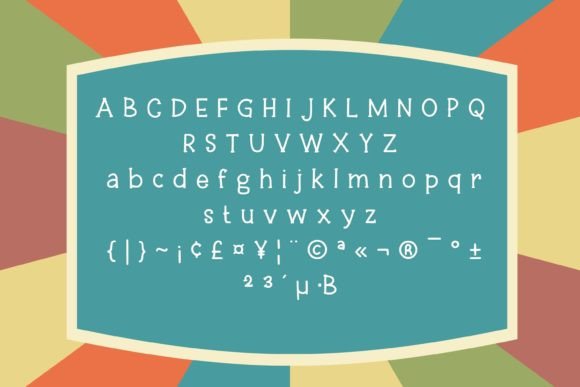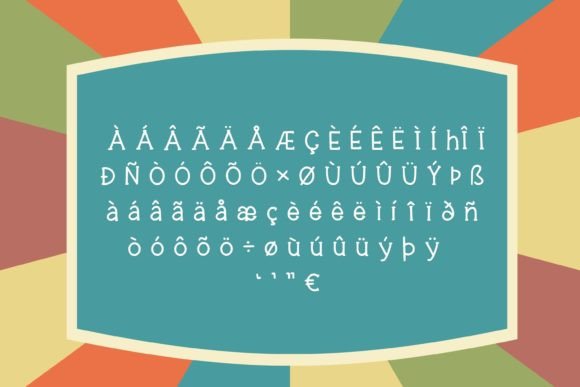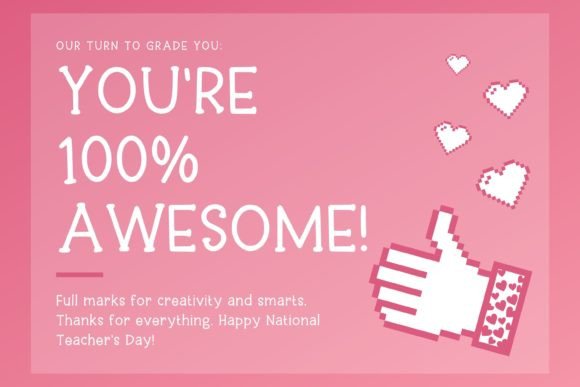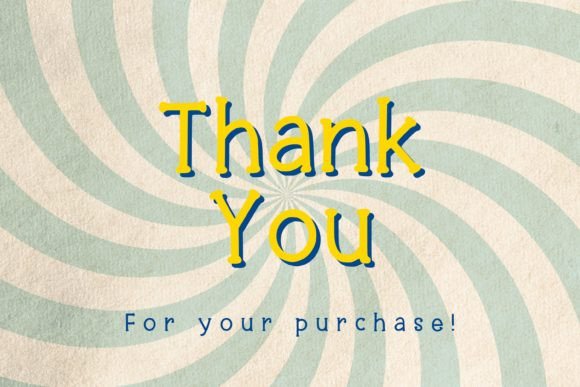
Discover the Charm of Depthsy Font: A Cute Typewriter Serif for Your Creative Projects
Are you on the hunt for a font that exudes a sense of casual joy and down-to-earth charm? Look no further than Depthsy, a delightful typewriter serif font that’s perfect for designers and crafters alike. With its unique blend of playfulness and readability, Depthsy is sure to become your go-to choice for a wide range of creative projects.
The Depthsy Difference: A Cute and Versatile Font
Depthsy is a cute typewriter serif font that’s designed to bring a touch of whimsy to your designs. Its casual and joyful style makes it appear wonderfully down to earth, readable, and, ultimately, incredibly versatile. Whether you’re working on a branding project, crafting a social media post, or creating a handmade craft, Depthsy is the perfect choice.
One of the standout features of Depthsy is its unique typewriter serif style. The font’s serifs are subtle yet distinctive, giving it a charming and nostalgic feel that’s reminiscent of classic typewriters. At the same time, the font’s clean lines and simple shapes ensure that it remains highly readable, even at smaller sizes.
What Makes Depthsy So Versatile?
So, what makes Depthsy so versatile? For starters, its casual and joyful style makes it perfect for a wide range of creative projects, from fun and playful designs to more serious and professional applications. The font’s readability also makes it a great choice for body text, while its charming serifs add a touch of personality to headings and titles.
Depthsy is also highly adaptable, making it suitable for use in a variety of contexts. Whether you’re designing for print or digital, the font’s clean lines and simple shapes ensure that it will look great on any device or medium. Plus, its unique style ensures that it will stand out from more traditional fonts, giving your designs a touch of personality and flair.
Depthsy is a font that’s specifically designed with designers and crafters in mind. Its unique style and versatility make it perfect for a wide range of creative projects, from handmade crafts to digital designs. Whether you’re a professional designer or a crafty hobbyist, Depthsy is sure to become a favorite in your font collection.
For designers, Depthsy offers a fresh and exciting alternative to more traditional fonts. Its unique style and charming serifs make it perfect for branding projects, social media graphics, and more. And with its high readability, it’s also a great choice for body text and other longer-form content.
For crafters, Depthsy is a dream come true. Its charming style and versatility make it perfect for a wide range of handmade crafts, from journaling and scrapbooking to card making and DIY projects. Plus, its unique style ensures that your finished projects will stand out from the crowd.
Getting Started with Depthsy
To get the most out of Depthsy, be sure to experiment with different sizes, colors, and styles. The font’s versatility makes it perfect for use in a wide range of contexts, so don’t be afraid to get creative and try new things.
In conclusion, Depthsy is a font that’s sure to delight designers and crafters alike. Its unique blend of playfulness and readability makes it perfect for a wide range of creative projects, from fun and playful designs to more serious and professional applications. With its charming style and versatility, Depthsy is sure to become a favorite in your font collection.